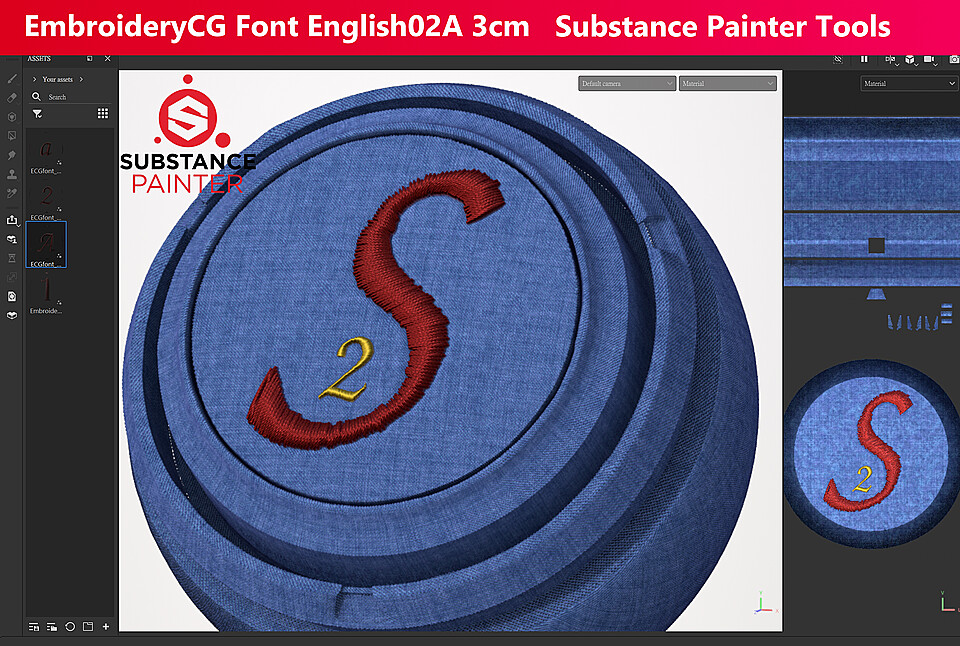
EmbroideryCG Font English02A 3cm Substance Tools
EmbroideryCG Font English02A 3cm : Substance Painter Tools
- Embroidery Chancery Font
- size:3cm
- 26 english upper case font
- 26 english lower case font
- 10 arabic number font
- Reference Embroidery Stitch Making
- Easily make embroidered word textures base PBR material